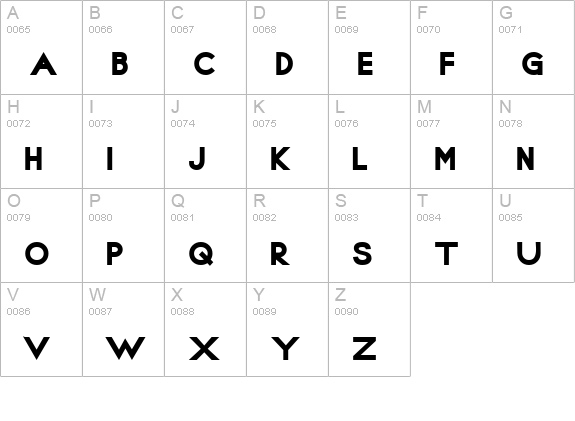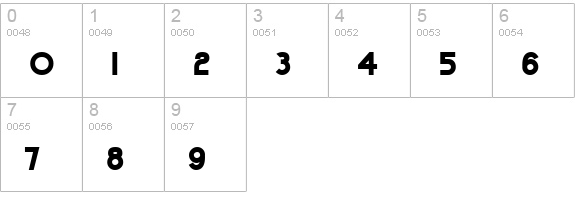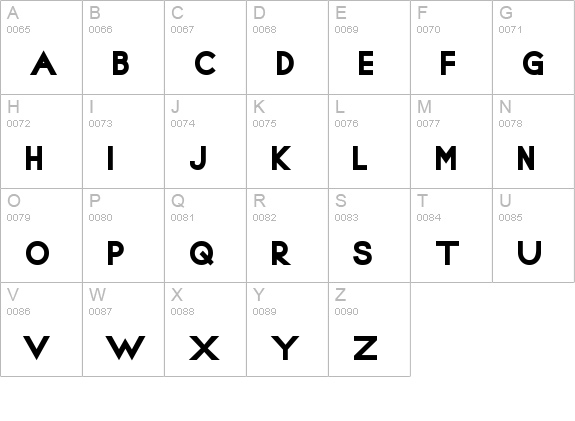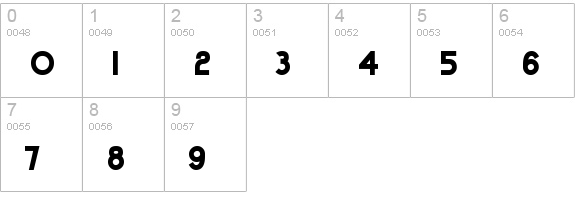
Raphael Font Details
Raphael font is a stunning and versatile typeface that exudes elegance and sophistication. Its sleek and modern design makes it perfect for a wide range of creative projects, from branding and logos to website headers and print materials. With its clean lines and balanced proportions, Raphael font commands attention while maintaining a timeless appeal. Its carefully crafted letterforms lend themselves to legibility, ensuring that your message is clearly communicated to your audience. What sets Raphael font apart is that it is not only aesthetically pleasing, but also freely available to download at FontsMarket.com. This means that you can enhance your designs with this exceptional font without any cost or restrictions. It's a fantastic opportunity for designers, students, and anyone in need of a high-quality font without breaking the bank. Whether you're designing a sleek corporate identity, a stylish magazine layout, or an eye-catching poster, Raphael font will elevate your work to new heights. Its versatility allows it to adapt to various design styles, making it a valuable asset for any project. In conclusion, Raphael font is a remarkable typeface that effortlessly blends modern aesthetics with timeless elegance. Its availability as a free download at FontsMarket.com makes it an invaluable resource for designers seeking to create impactful and visually stunning designs. Embrace the versatility and sophistication of Raphael font and unlock a world of design possibilities.